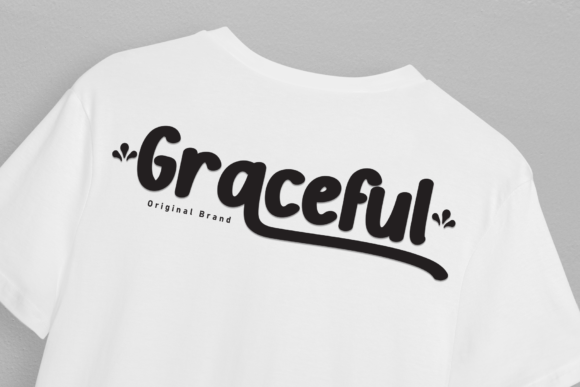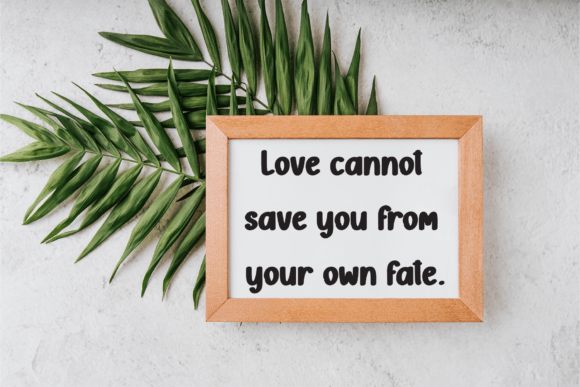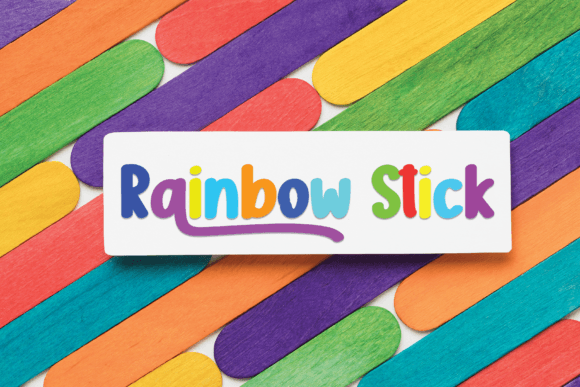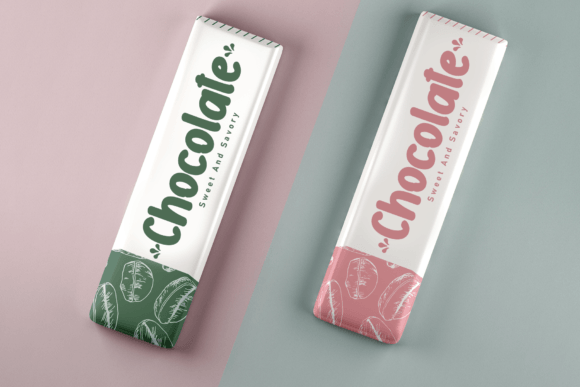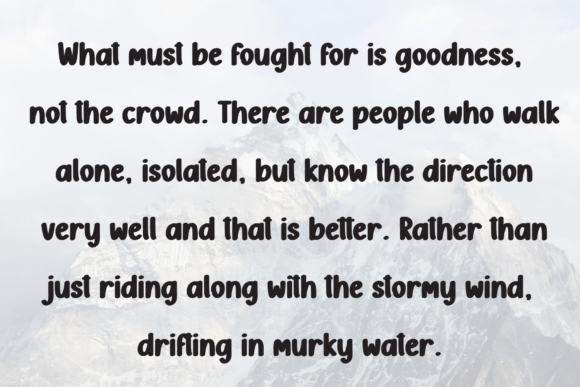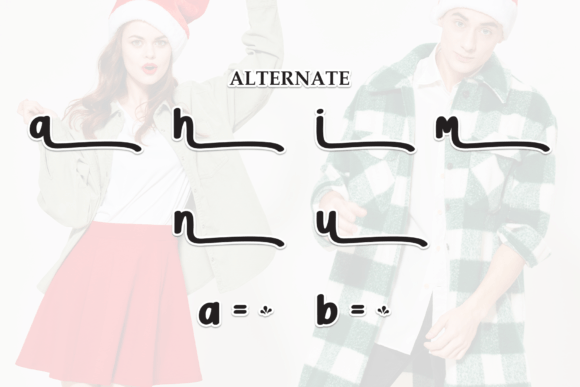
Get into the Holiday Spirit with Clothes Christmas Font
It’s that time of the year again, when creativity flows like hot cocoa on a cold winter’s night. You’re browsing through design blogs, scrolling through Pinterest, and pinning down the perfect idea for your next project. And then, it hits you – the perfect typography to match your festive mood. This is where Clothes Christmas Font comes in, a delightful addition to your design arsenal.
This special font is designed to bring a touch of holiday cheer to your projects. Whether you’re creating wall displays, wedding invitations, or social media posts, Clothes Christmas Font is the perfect choice. With its unique style and versatility, it’s a valuable asset for designers looking to add a personal touch to their work. The best part? It’s easy to use and compatible with a range of software, making it a must-have for any creative project.
Clothes Christmas Font Key Features
- Unique Characteristics: The font features a festive and playful design, with intricate details and ornaments that evoke the magic of the holiday season.
- Font Style: The font is a bold, sans-serif design with a modern twist, making it perfect for use in holiday-themed graphics, posters, and advertisements.
Clothes Christmas Font Review
Clothes Christmas Font is a cheerful, festive font that’s perfect for adding a touch of holiday magic to your designs. ✨ The font’s playful, handwritten style is sure to capture the essence of Christmas, making it ideal for holiday-themed projects, social media graphics, and advertisements. ✨
- Works well for: Holiday-themed projects, social media graphics, advertisements, and promotional materials.
- Best for: Younger audiences, children, and families.
- Easy to read and use.
However, there are a few limitations to consider: ⚠️ The font may be too casual for formal or professional projects, and it’s not suitable for large blocks of text due to its playful, handwritten nature. Additionally, some users may find the font’s size limitations restrictive. ⚠️
Overall, Clothes Christmas Font is a fun and festive addition to any designer’s toolkit. While it may have some limitations, its unique style and cheerful vibe make it a great choice for holiday-themed projects. With a little creativity, you can use this font to create eye-catching designs that will stand out during the holiday season.